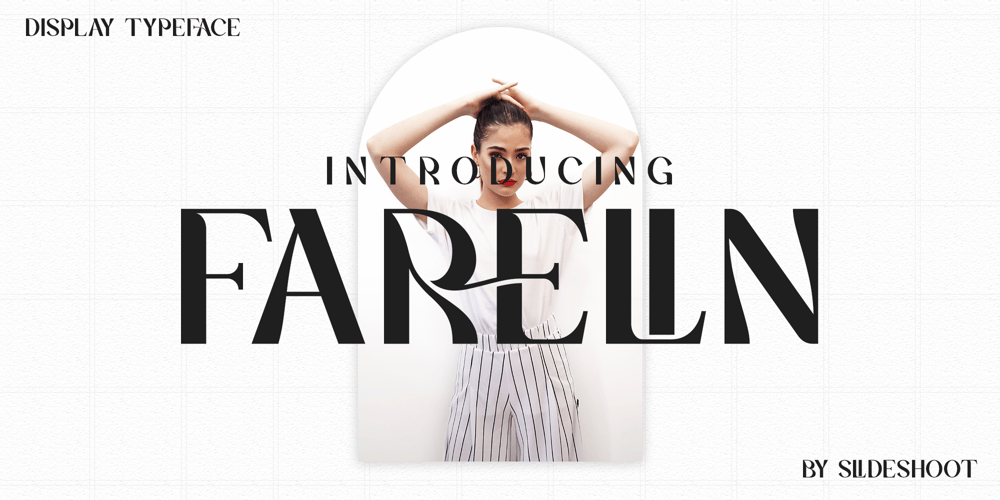
Farelin Font Family was designed by Ahmad Riqi and published by Slide Shoot. Farelin contains 1 styles and family package options. Farelin Display Font is a captivating piece of typographic art that combines the timeless elegance of serifs with the style of a display font. Farelin Displays Font is a display serif font that exudes and elegance. Its stylish alternations and ligatures make this font a perfect partner for any project.